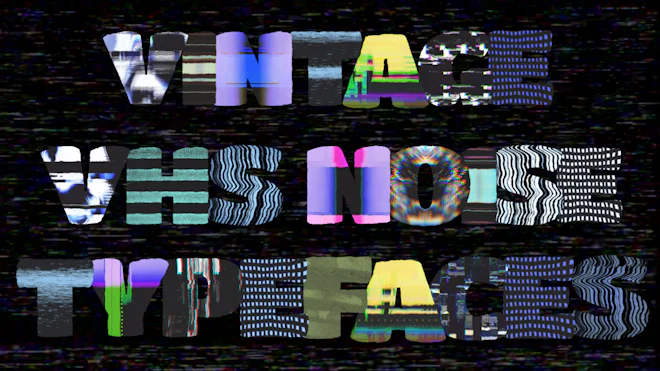
This stock motion graphics video pack includes 51 different clips of vintage vhs noise typefaces - letters, numbers, and symbols on a transparent alpha channel.